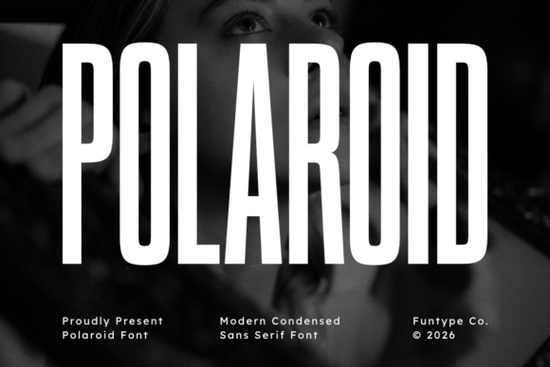
The Polaroid Font is a standout choice for anyone looking to add a bold, nostalgic flair to their design projects. With its tall, sleek structure and geometric precision, this modern condensed sans serif font offers a unique blend of retro charm and contemporary sophistication. Whether you're working on a fashion brand, a film poster, or product packaging, the Polaroid Font delivers a strong visual impact that commands attention.
Designed with versatility in mind, the Polaroid Font works well in a variety of applications. Its narrow layout and deep vertical contrast make it ideal for headlines, logos, and other display purposes where clarity and style are essential. The font’s clean lines and balanced proportions ensure readability without sacrificing personality. It’s available in both OTF and TTF formats, making it easy to use across different design platforms and commercial printing needs.
What makes the Polaroid Font special?
The Polaroid Font is more than just a visually striking typeface it’s a tool that can elevate your design work. Its robust structure gives it a confident presence, while its condensed form allows for efficient use of space. This makes it particularly useful for projects where typography needs to be both impactful and concise. The font’s geometric elements add a sense of modernity, while its overall aesthetic brings a touch of nostalgia that resonates with many audiences.
One of the key strengths of the Polaroid Font is its adaptability. It performs well in both digital and print formats, ensuring consistent quality no matter where it’s used. Whether you’re designing a website, a social media post, or a physical product, this font maintains its sharpness and clarity. Its clean, uncluttered design also makes it suitable for a wide range of industries, from fashion and entertainment to marketing and branding.
How to use the Polaroid Font effectively
When using the Polaroid Font, consider the context of your project. For maximum impact, pair it with simpler fonts that don’t compete with its boldness. This approach helps maintain visual balance while letting the Polaroid Font shine. You can also experiment with different sizes and weights to find the perfect fit for your design.
For users who are new to this typeface, it’s helpful to explore how it looks in various settings. Try using it in headlines, captions, or even as part of a logo. Testing it in different layouts will give you a better understanding of its strengths and limitations. If you’re looking for inspiration, checking out similar fonts like the Polaroid Font on Creative Fabrica can provide valuable insights.
Final thoughts on the Polaroid Font
The Polaroid Font is a powerful addition to any designer’s toolkit. Its combination of strength, style, and functionality makes it a versatile choice for a variety of projects. Whether you're creating a bold headline or a subtle design element, this font provides the confidence and clarity needed to make your work stand out.
If you're looking for a font that balances retro appeal with modern design, the Polaroid Font is definitely worth considering. Its clean, geometric structure ensures that it remains relevant across different trends and styles. By integrating this font into your workflow, you can add a fresh, dynamic element to your creative projects.